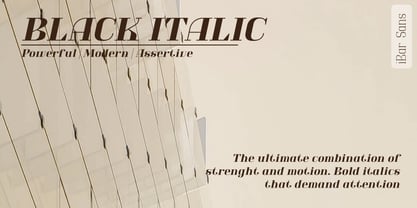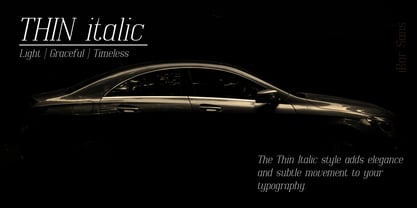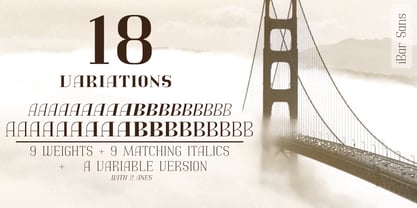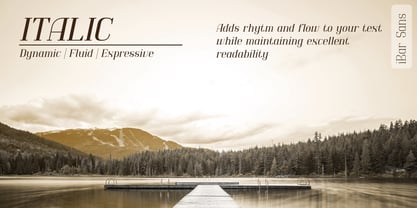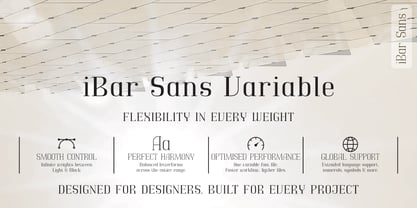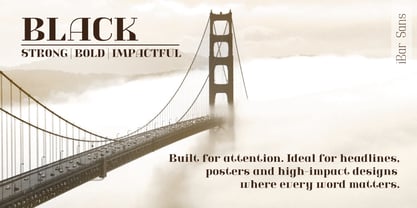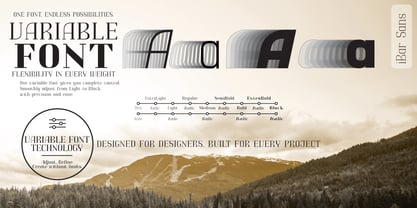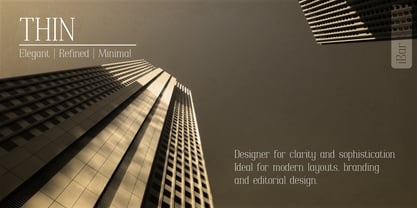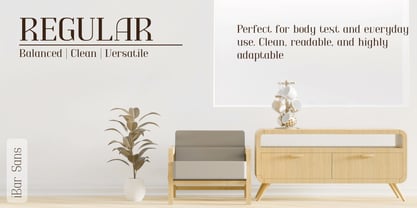
Ibar Didone
por Ibar Fonts
La familia tipográfica Ibar Didone fue diseñada por Sasa Kojic y publicada por Ibar Fonts. Ibar Didone contiene 19 estilos y opciones de paquete familiar. Más información sobre esta familia
ibar Didone is a timeless display serif designed for elegance, versatility, and expressive typography.
This sophisticated typeface family blends refined Art Deco influences with contemporary precision, creating a distinctive voice for premium branding, editorial design, luxury packaging, fashion campaigns, invitations, and high-end digital experiences. Its graceful proportions, sharp geometric details, and carefully balanced contrast deliver an unmistakable sense of style while maintaining excellent readability at display sizes.
The family includes 18 meticulously crafted styles9 weights ranging from Thin to Black, each accompanied by a perfectly matched italic—providing exceptional flexibility for every stage of the design process. Whether creating delicate headlines, bold statements, or elegant visual hierarchies, every weight has been carefully engineered to work seamlessly together.
To further expand its creative potential, the family also features a Variable Font with two interpolation axes, allowing designers to smoothly adjust weight and slant for limitless typographic expression while reducing file sizes and simplifying modern workflows.
Diseñadores: Sasa Kojic
Fundición: Ibar Fonts
Ibar Didone